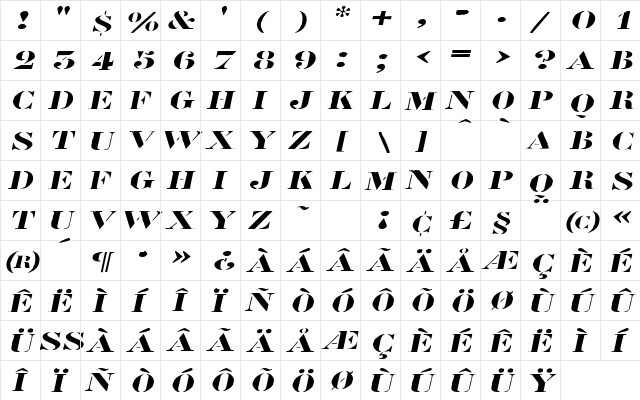
RoadcaseExtended Oblique
Design Context for RoadcaseExtended Typeface
RoadcaseExtended is a composed and adaptable typeface that performs quietly and consistently across a wide range of design contexts. The slanted form adds forward momentum and visual energy.